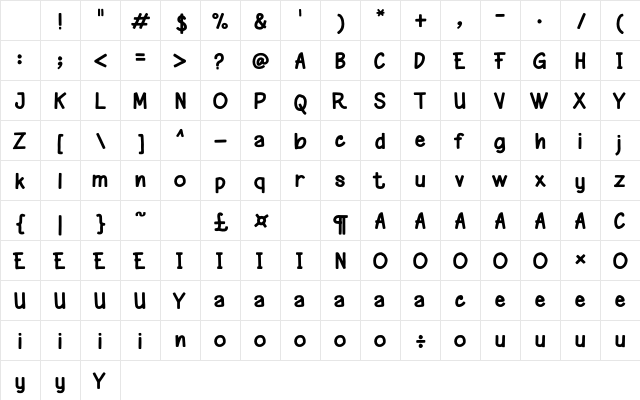
Complete With Logica Regular glyph index. Displaying only characters natively supported by With Logica Regular font.
With Logica is a composed and adaptable typeface that performs quietly and consistently across a wide range of design contexts.